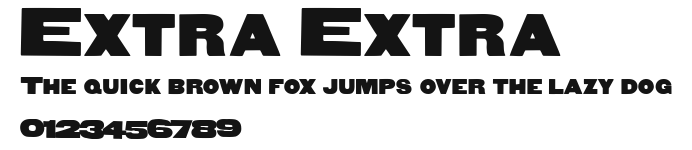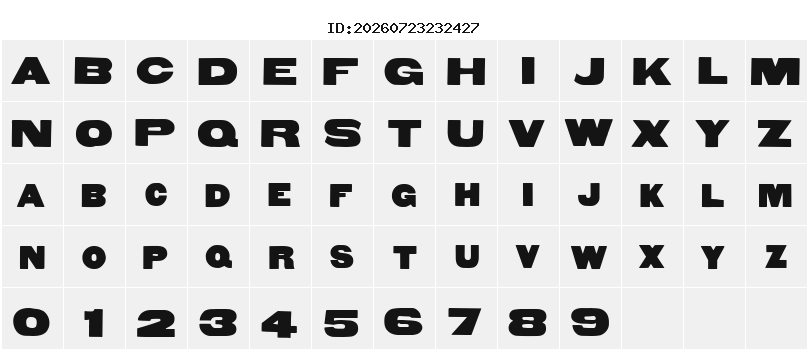
Extra Extra Preview
• Font Name: Extra Extra
• Full Font Name: Extra Extra HPLHS
About Extra Extra.ttf
Extra Extra.ttf is a modern, elegant sans-serif font designed for ultimate readability and visual harmony. Perfect for branding, headlines, web design, and print materials.